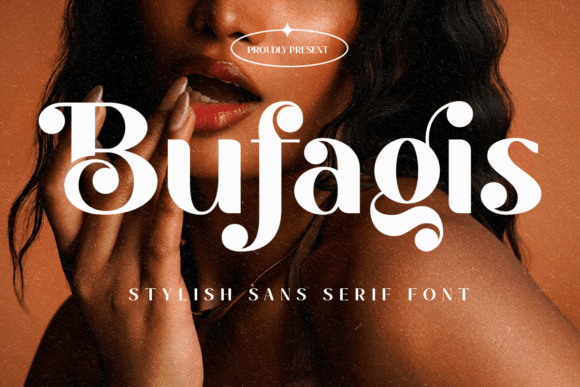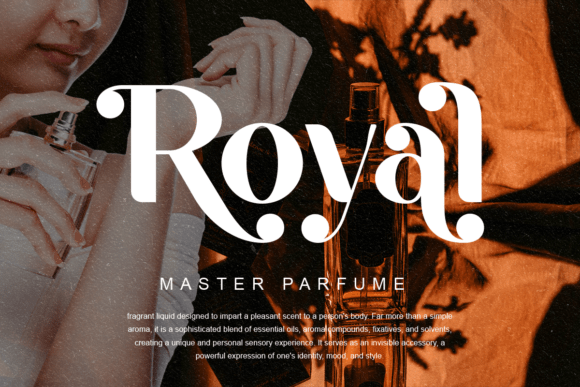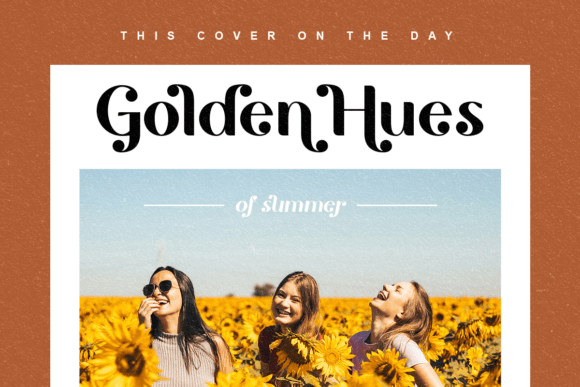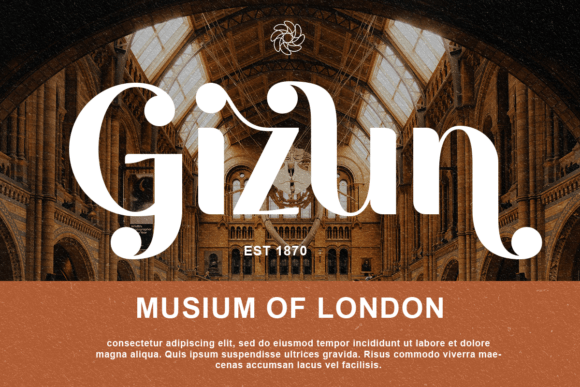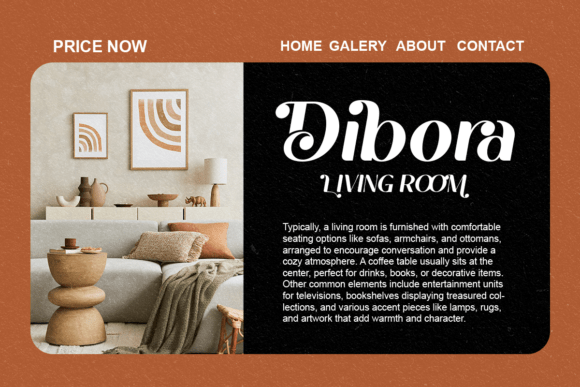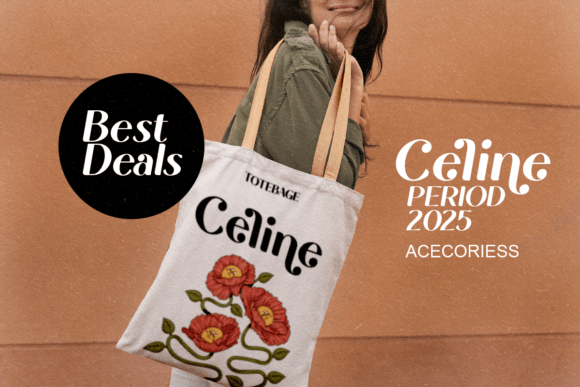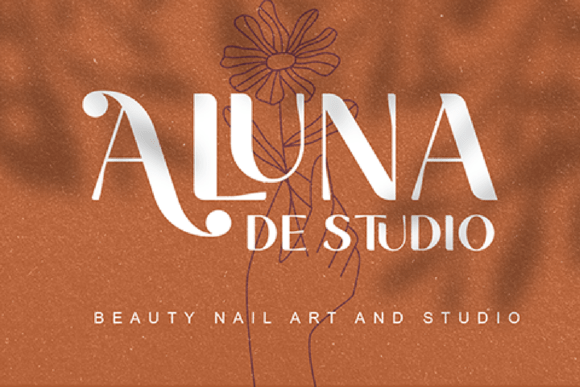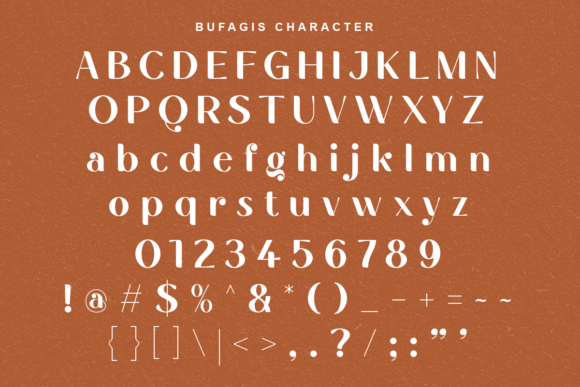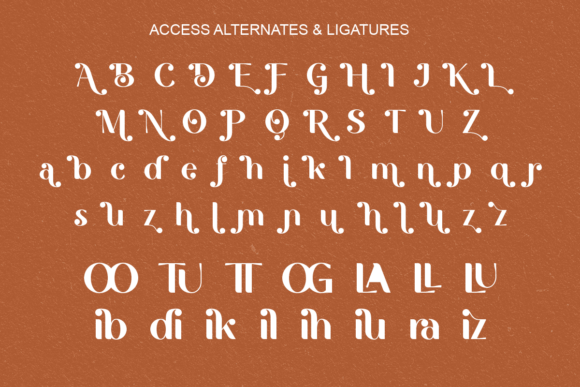
Bufagis Font
Bufagis is an elegant high-contrast sans serif font with luxurious curves, bold terminals, and stylish swashes. Ideal for branding, editorial headlines, packaging, and high-fashion design projects.